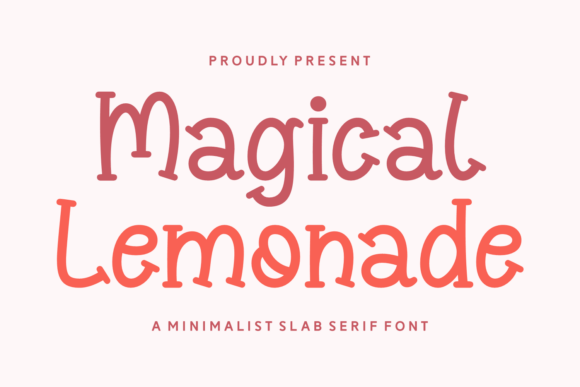
Magical Lemonade Font for Charming Campaign Visuals
Last Tuesday, while finalizing assets for a spring product launch, I hit a familiar creative wall. The campaign visuals were polished, the photography was bright, and the copy was tight, but the headlines felt disconnected from the brand’s playful yet professional voice. We needed typography that could carry warmth without sacrificing clarity on mobile screens. That is when I introduced Magical Lemonade into our design workflow. As a charming and minimalist slab serif font typeface that exudes cuteness and simplicity, it immediately transformed our static mockups into cohesive campaign assets. With its clean lines and easy-to-read design, this font became the anchor for a wide range of promotional materials, proving that strategic typography choices can bridge the gap between aesthetic appeal and marketing functionality.
Using Magical Lemonade for Social Media Graphics and Instagram Posts
When designing social media graphics where scroll-stopping power is essential, Magical Lemonade serves as an ideal slab serif solution for capturing attention in crowded feeds. In our recent Instagram carousel series, we needed a display font that remained legible at thumbnail size while conveying a friendly, approachable mood. Unlike heavier novelty fonts that often blur on small screens, the clean lines of Magical Lemonade maintained perfect integrity even when scaled down for mobile previews. The minimalist structure allows the typeface to sit comfortably over busy lifestyle photography or solid pastel backgrounds without competing for visual dominance. For content creators managing high-volume posting schedules, having a reliable font that works across square posts, stories, and reels covers streamlines the production process significantly. The inherent cuteness of the letterforms adds personality to quote graphics and announcements, ensuring the brand voice feels consistent whether we are sharing educational tips or flash sale alerts.
Magical Lemonade Typography for YouTube Thumbnails and Video Titles
Video marketers understand that click-through rates often hinge on thumbnail readability, making Magical Lemonade a strategic choice for YouTube thumbnails and video titles that need instant recognition. During our webinar promotion campaign, we tested this slab serif against standard bold sans serifs and found that the unique character shapes created better contrast against vibrant background elements. The font’s sturdy serifs provide enough weight to stand out in YouTube’s suggested video sidebar, yet the open counters prevent the text from looking muddy when compressed. Because Magical Lemonade exudes simplicity, it pairs exceptionally well with expressive facial expressions or product close-ups commonly used in thumbnail composition. We utilized the uppercase setting for primary hooks and sentence case for secondary context, leveraging the font’s versatility to guide viewer hierarchy. This practical application demonstrates how specialized fonts can directly support engagement metrics by reducing cognitive load for potential viewers scanning through search results.
Applying Magical Lemonade to Email Banners and Digital Ad Sets
Email marketing campaigns require typography that renders consistently across diverse clients, and Magical Lemonade offers the reliability needed for email banners and digital ad sets. When preparing our seasonal newsletter header, the challenge was finding a typeface that felt festive without triggering spam filters or rendering issues in dark mode. The balanced proportions of this slab serif ensured that our "Spring Collection" headline remained crisp whether viewed on Outlook, Gmail, or Apple Mail. In paid digital ads, where every pixel counts toward conversion, the font’s easy-to-read design reduces friction for users processing information quickly. We found that using Magical Lemonade for offer callouts increased visual harmony compared to mixing disparate font families. The charm embedded in the letterforms softens the transactional nature of sales copy, helping to build emotional resonance before the user even clicks through to the landing page. This duality of function and feeling is what makes it a valuable asset in performance-driven design workflows.
Pairing Magical Lemonade with Clean Sans Serif Fonts for Brand Identity
Establishing a cohesive brand identity often depends on effective font pairing, and Magical Lemonade complements clean sans serif fonts to create balanced typographic systems. In our online shop campaign, we used Magical Lemonade exclusively for H1 headers and category labels while relying on a neutral geometric sans serif for body copy and product descriptions. This combination leverages the slab serif’s personality for navigation and emphasis while maintaining optimal readability for longer text blocks. The minimalist nature of Magical Lemonade prevents it from clashing with supporting typography, allowing designers to build flexible templates that scale across web and print. When creating branded content series, this pairing strategy ensures that promotional graphics feel like natural extensions of the website experience rather than disjointed advertisements. Marketers should consider testing different weights of their chosen sans serif to find the exact optical balance that lets the charm of Magical Lemonade shine without overwhelming the informational hierarchy.
Optimizing Magical Lemonade Readability for Mobile Screens and Dark Mode
Digital accessibility demands rigorous testing, and optimizing Magical Lemonade for mobile screens and dark mode ensures your message reaches all audience segments effectively. During our Pinterest campaign development, we noticed that certain decorative fonts lost definition when overlaid on dark images, but the robust slab structure of Magical Lemonade retained excellent contrast. We recommend adding subtle drop shadows or outer glows when placing light-colored text on complex backgrounds to preserve legibility without altering the font’s intrinsic charm. For mobile-first platforms like TikTok or Instagram Stories, keeping headline text within the safe zone and avoiding excessive scaling maintains the clean lines that define the typeface. Testing across multiple devices during the QA phase reveals potential rendering issues before launch. By prioritizing readability alongside aesthetics, marketers ensure that the cuteness of the font enhances rather than hinders the user journey, ultimately supporting higher engagement and clearer communication across all digital touchpoints.